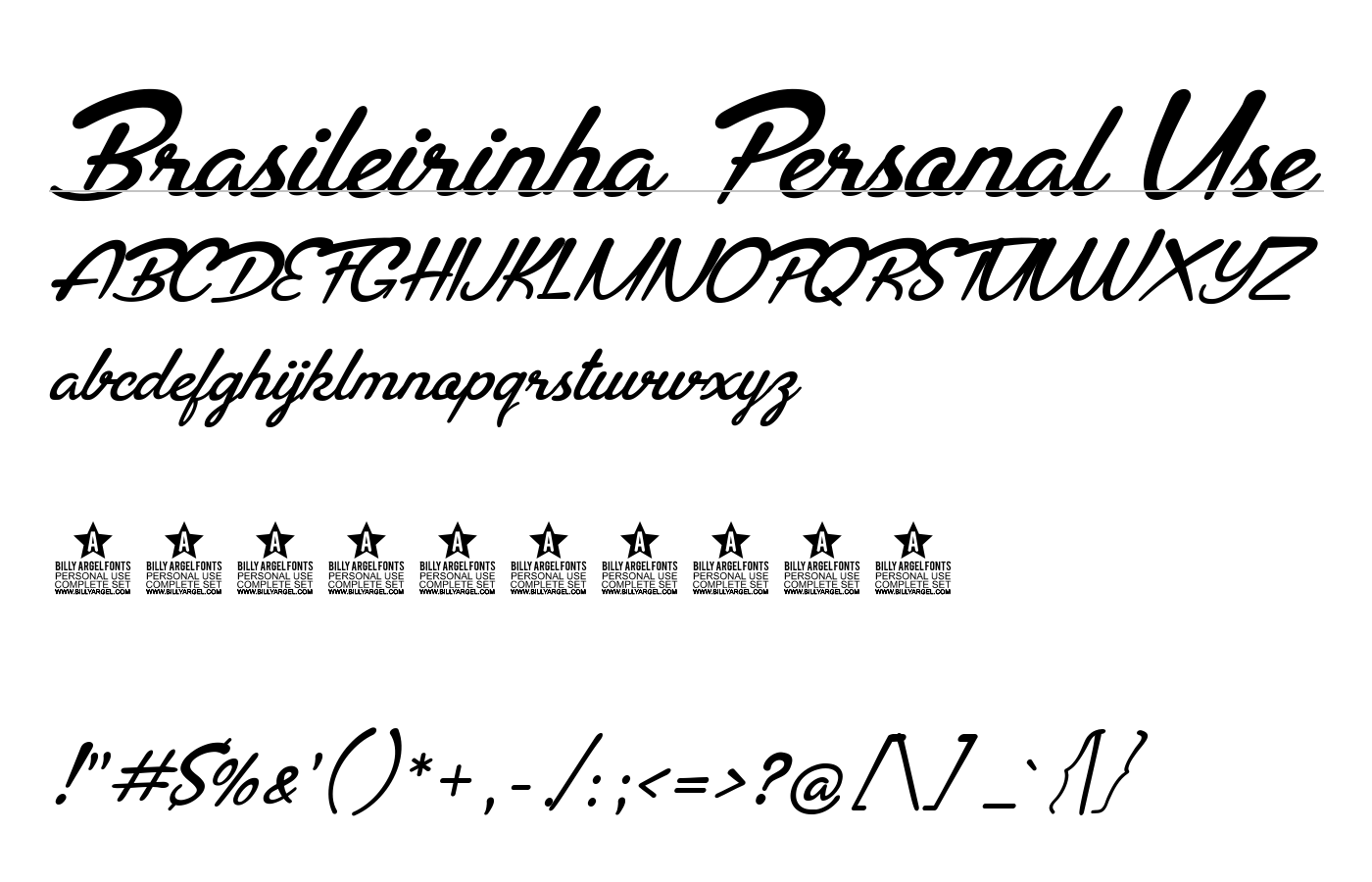
Brasileirinha Personal Use is a lively and elegant script font featuring smooth, flowing strokes that mimic natural handwriting. Its medium weight and slightly condensed structure give it a refined and approachable feel, making it ideal for branding, invitations, and stylish headlines. This font’s playful yet sophisticated personality brings a personal and warm touch to designs, perfect for projects seeking a handwritten charm with clarity and flair.
Brasileirinha Personal Use Font
About Brasileirinha Personal Use Font
| Font family | Brasileirinha Personal Use Font |